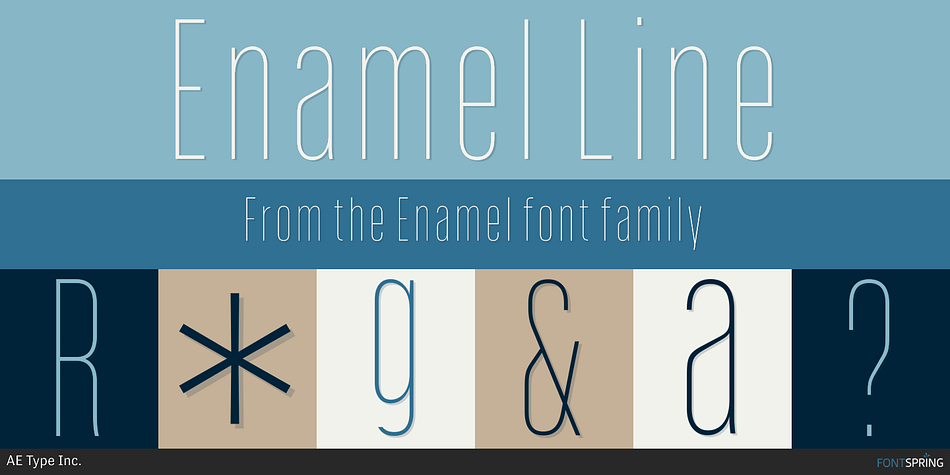
Enamel Line
Enamel is a display sans font family. This typeface has three styles and was published by AE Type Inc.
Enamel is an inline bold condensed sans based on a modified version of Sorren.
Enamel is an inline bold condensed sans based on a modified version of Sorren. The original letterforms have been customized and carefully adapted to accommodate the monolinear inlay. The dual layers that make up Enamel are united as one with the Inline style, yet are available as separate styles for managing multicolor use.
Stylistically, Enamel expands on Sorren’s classic, timeless feel with the inline detailing exuding a feel reminiscent of traditional lettering and signage art. For more contemporary, experimental applications the two extreme layer styles can be used independently of each other extending its use beyond tradition.